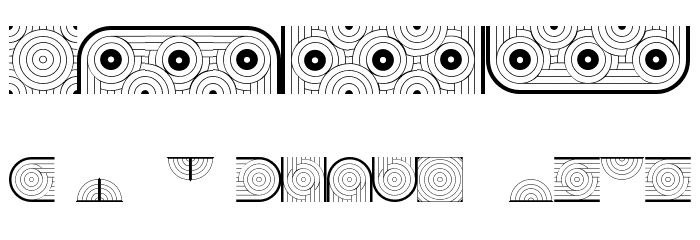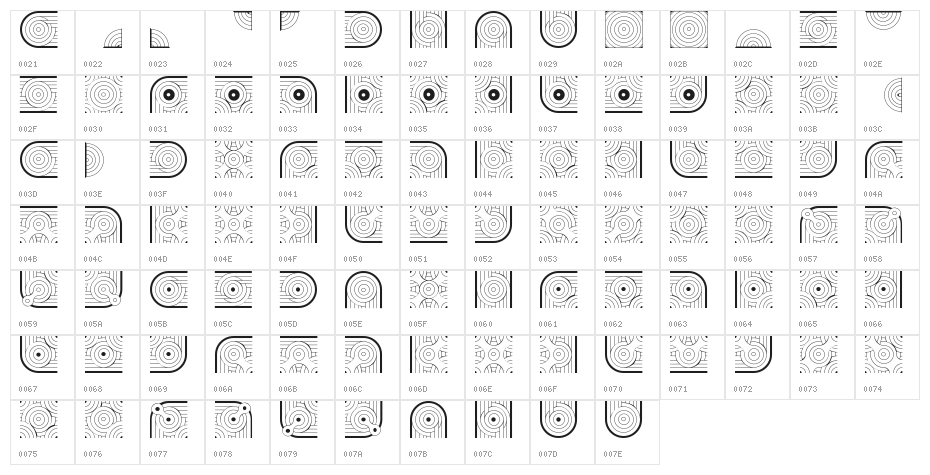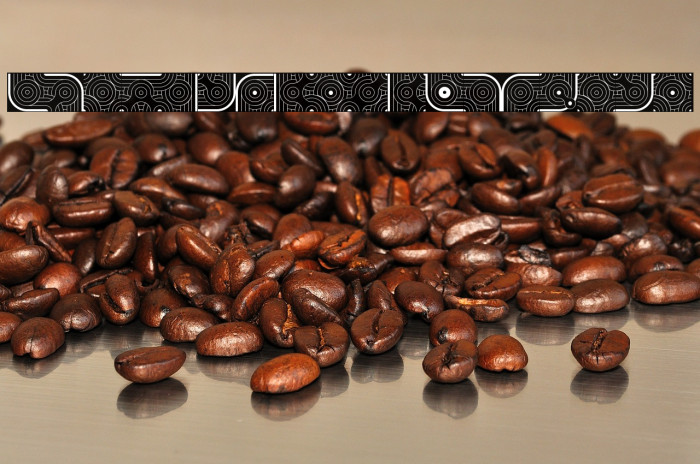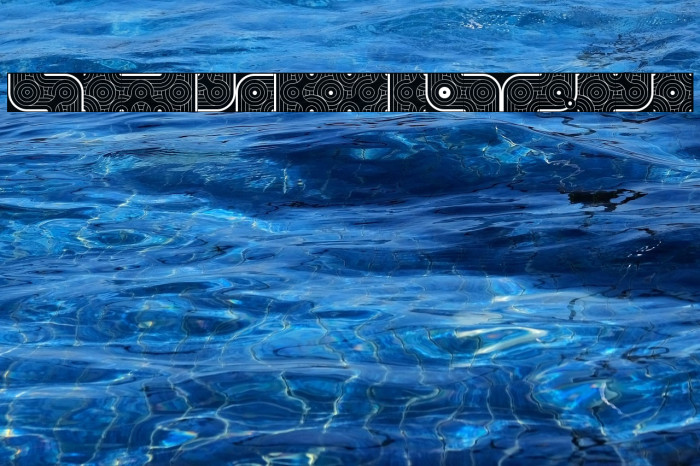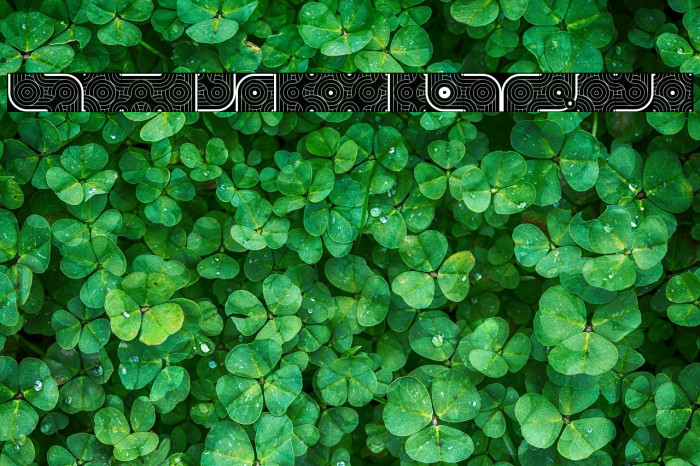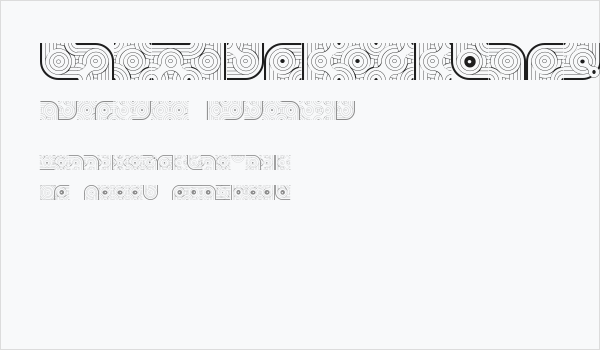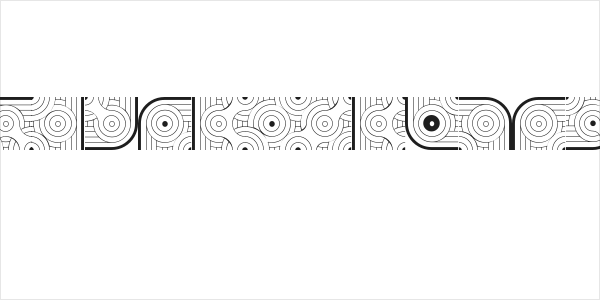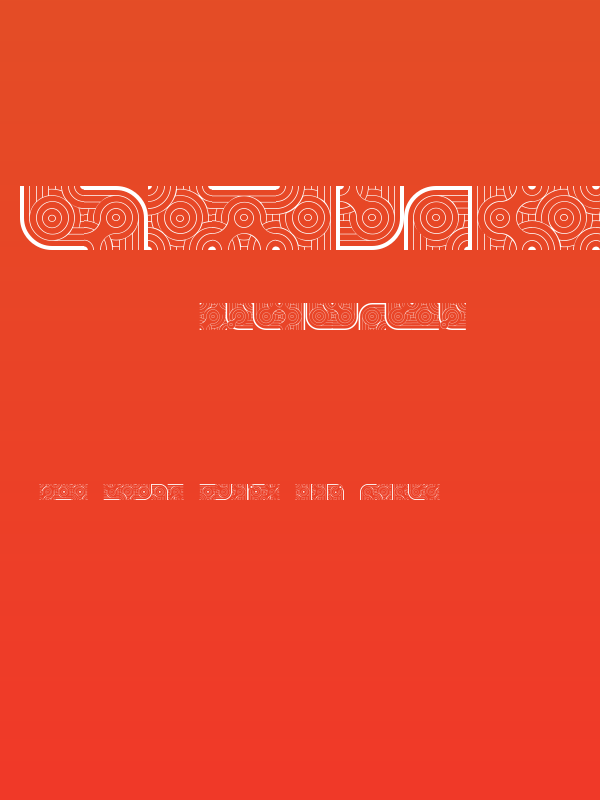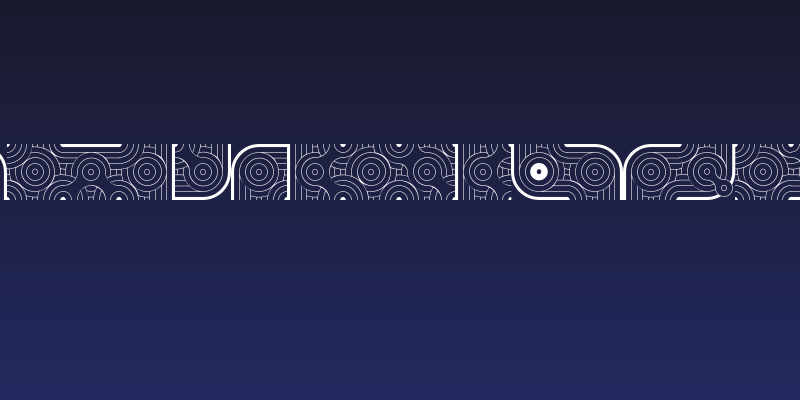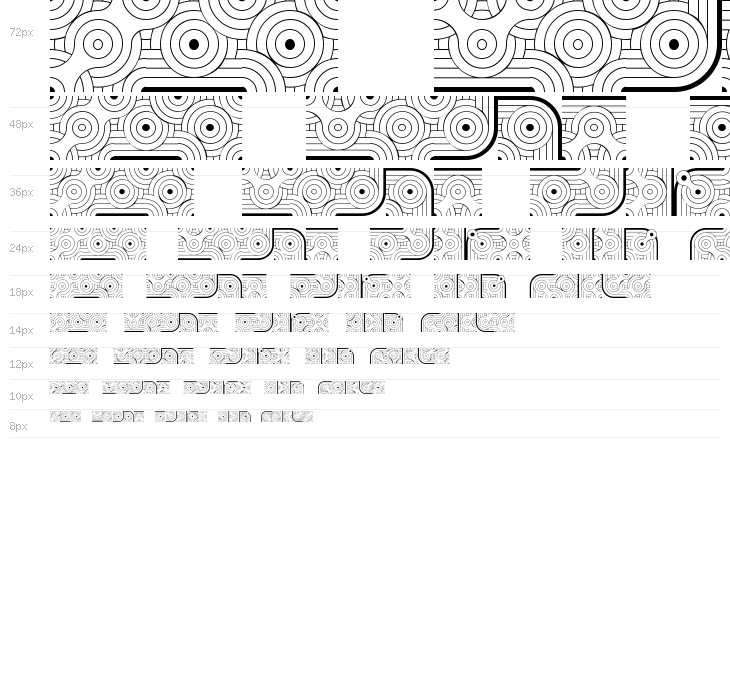
GlukFramesM7CAzure Font
GlukFramesM7CAzure Description
This font features a highly decorative and intricate design, characterized by a series of concentric circles and geometric patterns within each character. The letters are enclosed in rectangular frames with rounded corners, giving them a unique and ornamental appearance. The design is consistent across all characters, creating a cohesive and visually striking set. The intricate patterns suggest a blend of modern and vintage styles, making it suitable for projects that require a bold and artistic touch.
| Proposed Projects | Ideal for use in artistic projects, decorative posters, unique branding, and creative invitations. |